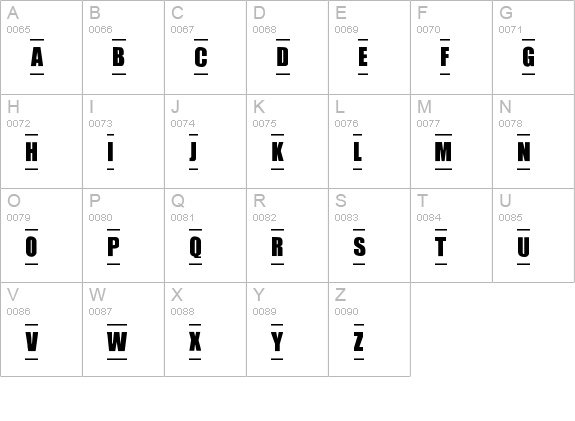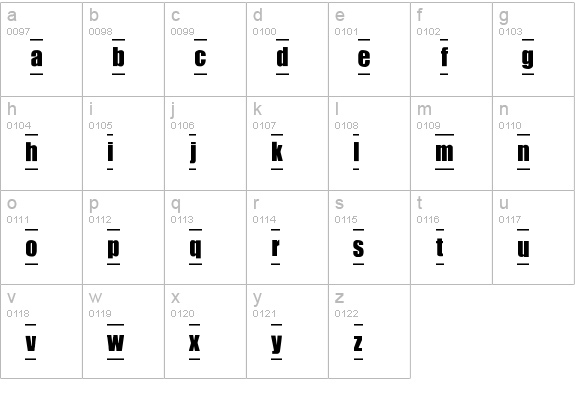
Capsle Font Details
Introducing Capsle font, a modern and stylish typeface that exudes sophistication and elegance. With its clean lines and sleek design, Capsle font is perfect for a wide range of design projects, from branding to editorial to web design. This versatile font can be used for both headers and body text, making it a must-have in any designer's toolkit. The best part? Capsle font is available for free download at FontsMarket.com. Take advantage of this amazing offer and add this beautiful font to your collection today. Elevate your designs with Capsle font and make a lasting impression on your audience.